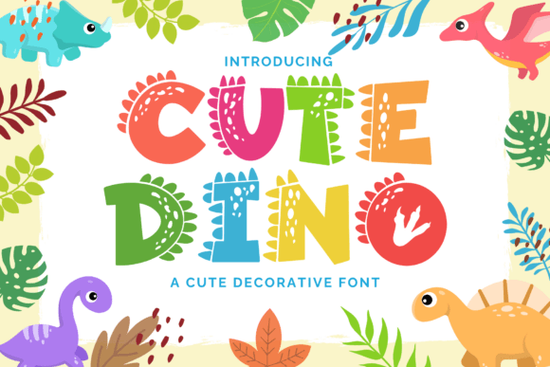
Looking for a font that makes your kids’ projects feel extra fun and approachable? The Cute Dinosaur Font is a playful decorative typeface built with chunky, happy characters that instantly bring a smile. Whether you’re designing a children’s book cover, a birthday card, or a custom t-shirt, this font adds a hand-drawn, friendly vibe that kids (and adults) love.
What makes this dinosaur font stand out for children’s projects?
The chunky letterforms are deliberately oversized and rounded, which makes them easy to read and visually warm. Unlike thin or script fonts, Cute Dinosaur Font holds up well at small sizes (like name tags) and big sizes (like poster headlines). The playful curves and slightly uneven baseline give it a handmade feel that connects with young audiences.
Because it’s a decorative font, it works best for titles, short phrases, or single words rather than long body text. Designers often pair it with a simple, clear sans-serif for readability in paragraph areas. This balance keeps the project cute without sacrificing legibility.
Which projects work best with this font?
This typeface is versatile enough for many print-on-demand and craft items. Here are some common uses:
- Children’s book covers – The bold letters grab attention on a shelf.
- Birthday cards and party invitations – Add a dinosaur theme or any playful celebration.
- T-shirt designs – Outline the letters or fill them with bright colors.
- Name tags and labels for classrooms or events.
- Logos for daycare centers, toy stores, or kids’ YouTube channels.
- Room decor printables – alphabet posters, growth charts, or banner letters.
How does it pair with other decorative fonts?
If you want to mix fonts for a richer design, try a second decorative font that keeps the same lighthearted tone. For example, the Sandy Wink Sea Font has a similar rounded, friendly shape and works well for beach or ocean-themed kids’ projects. For a hand-stitched feel, consider the Willow Stitch Font – its textured letters can complement the dinosaur font on sewing or craft branding. A boho or western vibe pairs nicely with the Rope Cowgirl Font, especially for adventure-themed children’s materials. And if you need a sharper, modern decorative option, the Alpha Spike Font gives an edgy contrast while staying playful.
When combining fonts, stick to one decorative style per project and use the others for accents like little words or numbers. This keeps the design clean and prevents visual clutter.
How can print-on-demand sellers use this font effectively?
If you sell on platforms like Redbubble, Etsy, or Amazon Merch, the Cute Dinosaur Font can help you create listings that stand out in a crowded market. Use it for:
- T-shirt text: “Tiny Dino” or “I Love Roar-some Adventures”.
- Kids’ posters with motivational quotes (keep them short).
- Personalized gift items – mugs, pillows, stickers with a child’s name.
The chunky design also works well as an outline font for coloring projects or for layering over patterned backgrounds. Because the characters are spaced generously, you can adjust tracking (letter spacing) to fill wide areas without losing readability.
What should designers look for in a good decorative kid’s font?
Beyond just “cute”, you want a font that’s well-constructed with consistent letterforms. Cute Dinosaur Font includes full uppercase and lowercase, numbers, and basic punctuation – enough for most short projects. Before committing, try a few test words in your design software (like “Dino Party” or “Happy Day”) to see how the letters interact. Decorative fonts often have unique glyphs (like alternate letters or swashes) – check if this one includes extras for more variety.
If you’re creating a children’s book, test the font at different sizes in a PDF proof. Small caps or heavy outlines can sometimes lose clarity when printed small, so a chunky face like this one is actually easier to scale than delicate scripts.